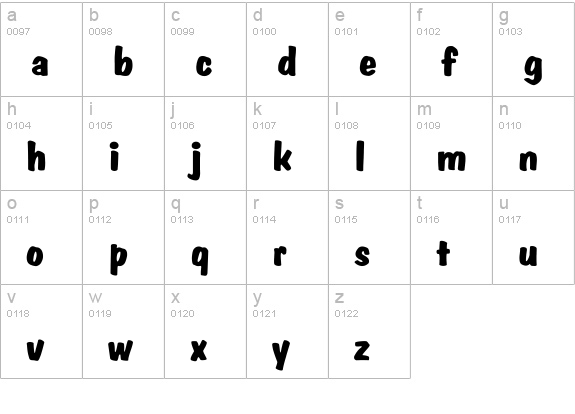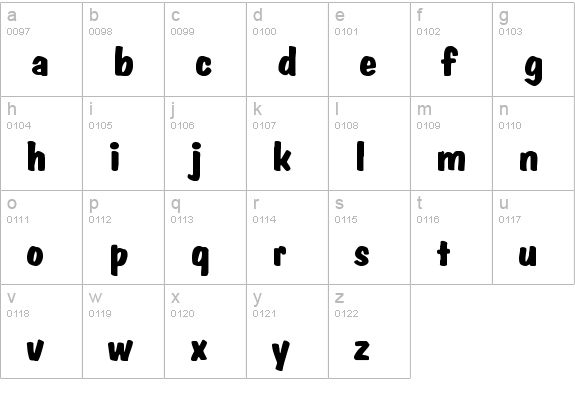
DomCasual-Bold Wd is a strong, high-contrast variant in the DomCasual typeface family \xE2\x80\x94 well suited to headlines, attention-grabbing titles, and strong calls-to-action.
DomCasual-Bold Wd is a bold and eye-catching font that exudes a sense of modernity and style. With its unique curves and strong presence, this font is perfect for making a statement in any design project. The thick strokes and wide spacing of DomCasual-Bold Wd make it ideal for headlines, logos, and other prominent text elements. What sets DomCasual-Bold Wd apart is that it is not only visually striking, but also free to download. You can easily access this dynamic font at FontsMarket.com, where you can add it to your collection without any cost. Whether you're looking to add a touch of boldness to your designs or simply want to experiment with a new typeface, DomCasual-Bold Wd is a versatile and accessible option that will elevate your projects to the next level.